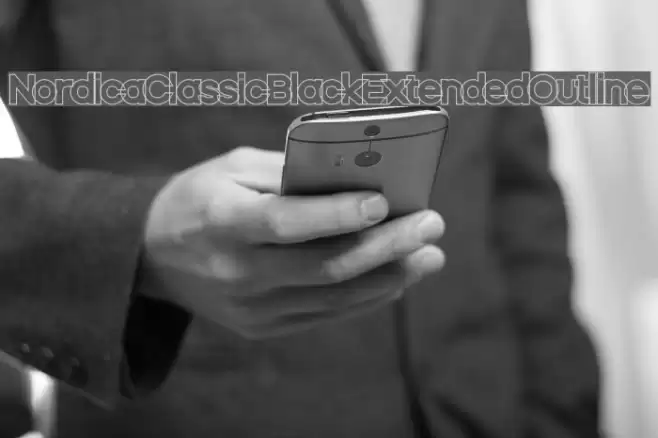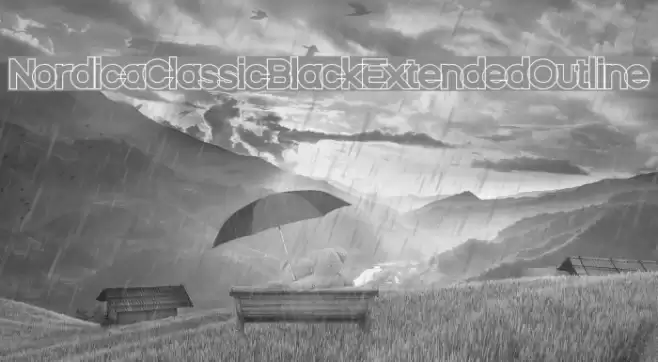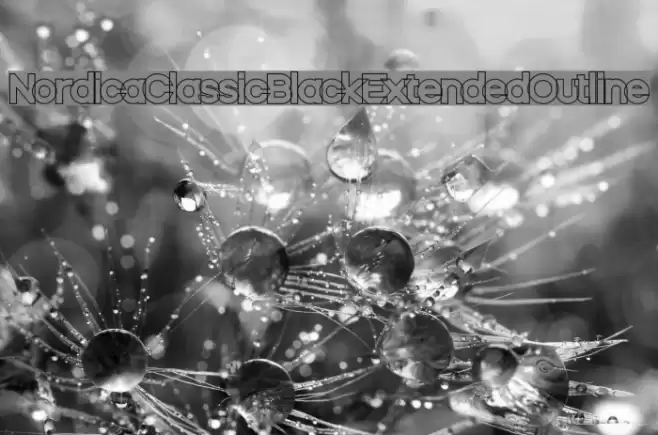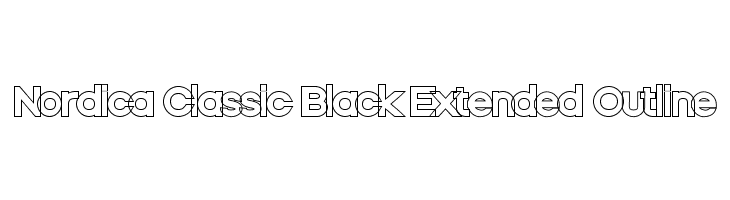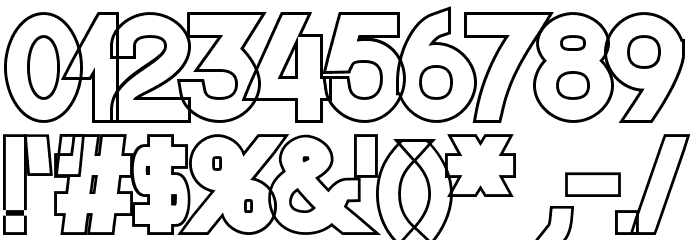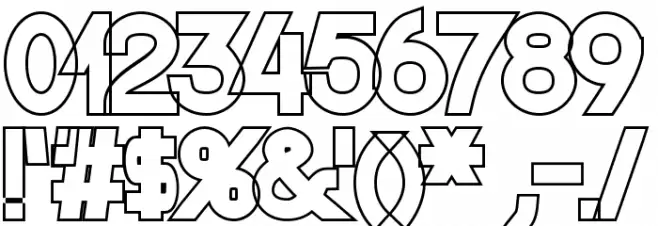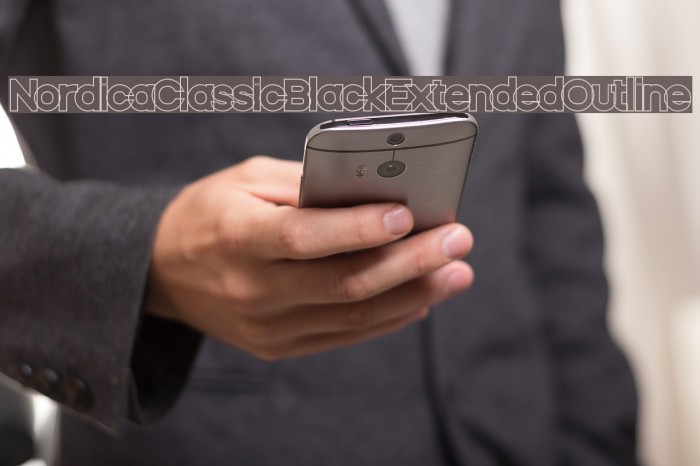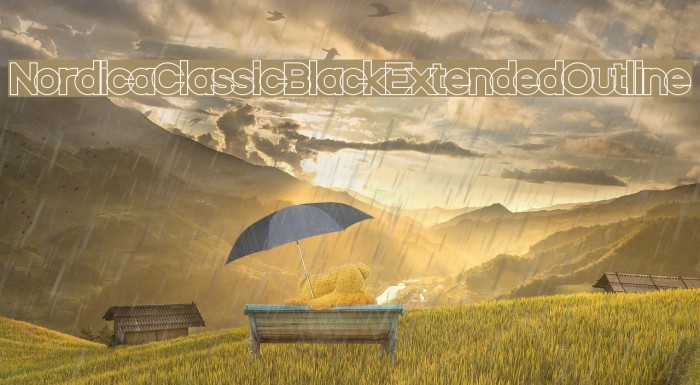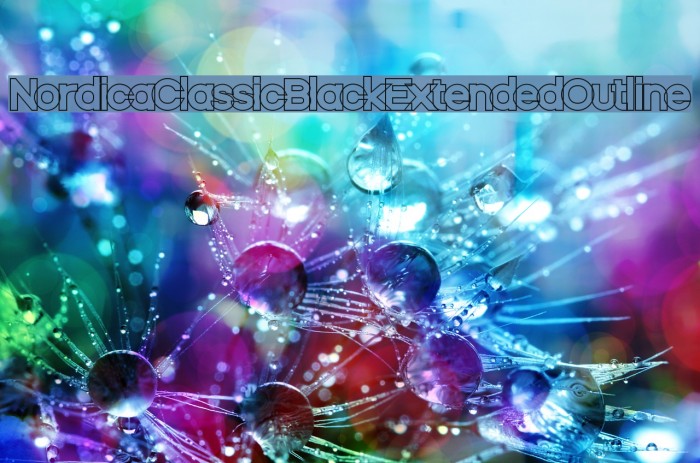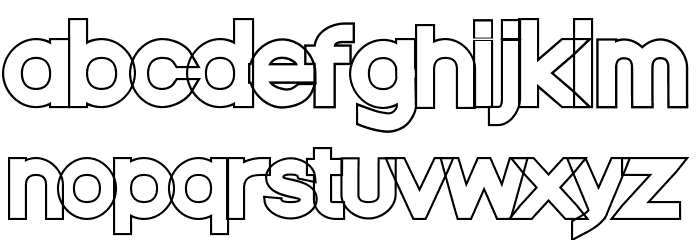
Nordica Classic Black Extended Outline
This font features a bold, extended outline style that gives it a striking and modern appearance. The characters are uppercase and lowercase letters, numbers, and a variety of special symbols, all designed with a consistent outline that emphasizes their geometric shapes. The font's clean lines and open forms make it highly legible, while the outline adds a unique decorative touch. The extended width of the characters provides a sense of stability and strength, making it suitable for impactful designs. Its versatility allows it to be used in various contexts, from branding to editorial design.
A bold, extended outline font with a modern and geometric style.
- Proposed Projects: Ideal for branding, posters, headlines, and editorial design where a modern and impactful look is desired.
- Width: Expanded
- Use Case: Headlines, Logos, Posters